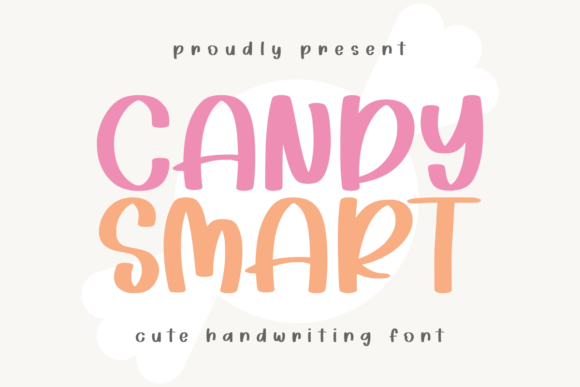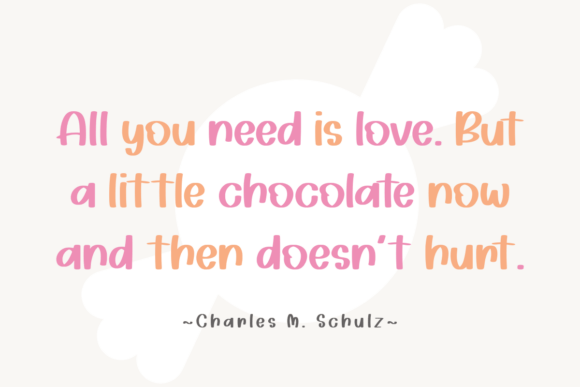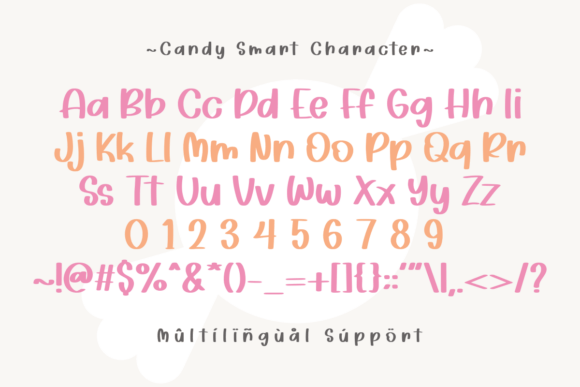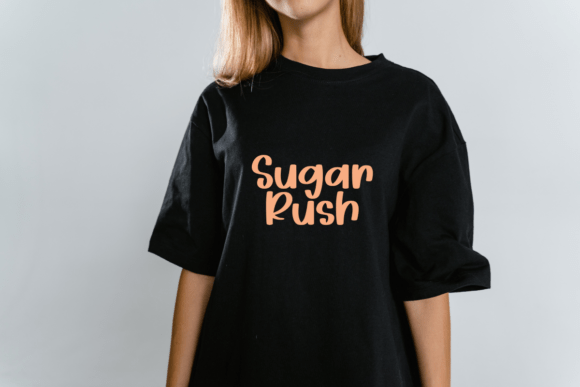
Candy Smart Font
About the Candy Smart Font
The wait is over! The incredible Candy Smart Font is now available for your design toolkit. Candy Smart is a cute, bold display font. Add this bold font to your design and watch how it brings it to life. Get inspired by her unique and beautiful style and add it to your favorite designs!
Candy Smart’s bold, playful nature makes it ideal for headlines, short slogans, and branding elements where a strong visual impact is desired. It works exceptionally well in packaging design, posters, and social media graphics. However, its condensed letterforms and strong weight are not suitable for body text or UI elements requiring high readability over extended lengths.
For optimal visual harmony, pair Candy Smart with a clean sans-serif like Open Sans for body copy or a delicate script font such as Great Vibes for a touch of elegance, depending on the desired overall mood. A geometric sans-serif could also provide a stylish contrast.
The font exudes a friendly, energetic personality, making it a perfect fit for brands targeting a younger demographic or those promoting fun, approachable products or services.